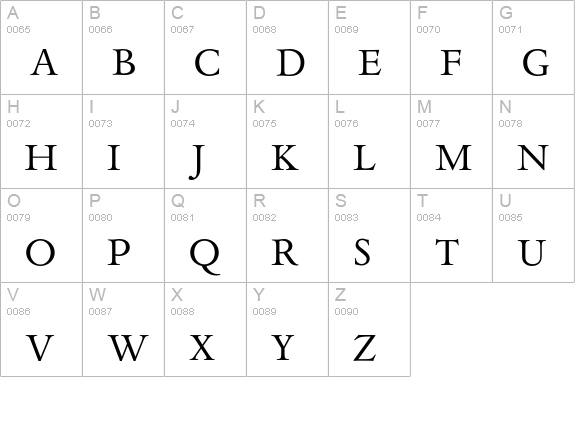
AsdanteExpert Font Details
Introducing AsdanteExpert font, a stylish and versatile typeface that is perfect for adding a touch of elegance to your design projects. This sophisticated font features a unique blend of classic and modern elements, making it suitable for a wide range of applications. Whether you're working on a branding project, advertising campaign, or personal creative endeavor, AsdanteExpert font is sure to make a lasting impression. What sets AsdanteExpert font apart is not just its aesthetic appeal, but also its accessibility. This premium font is available for free download at FontsMarket.com, allowing you to elevate your designs without breaking the bank. With its clean lines, sharp edges, and graceful curves, AsdanteExpert font brings a sense of refinement and sophistication to any project. Add a touch of class to your designs with AsdanteExpert font, the perfect choice for those seeking a blend of tradition and innovation. Download this exquisite font for free today and let your creativity shine.